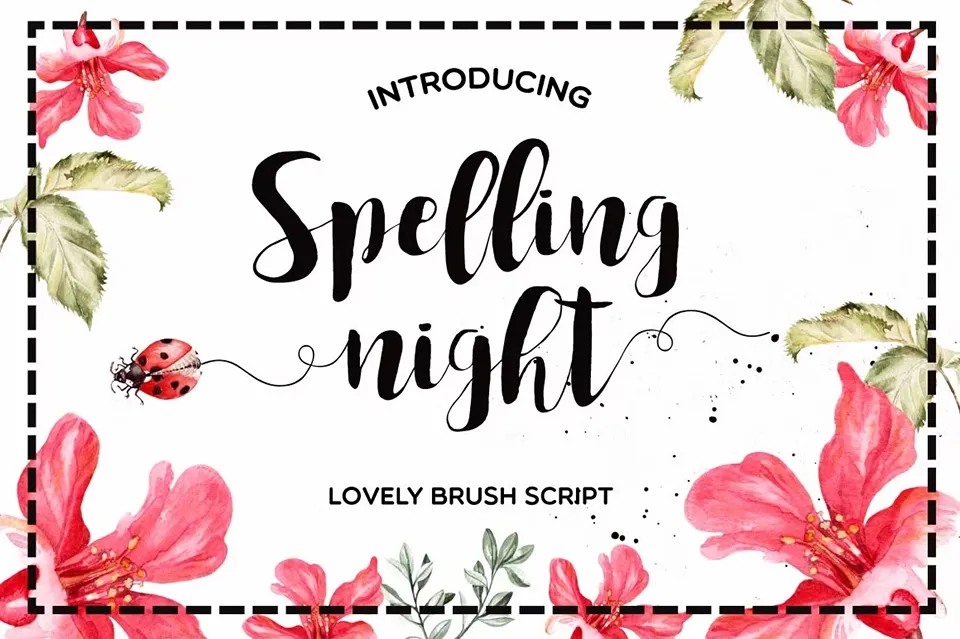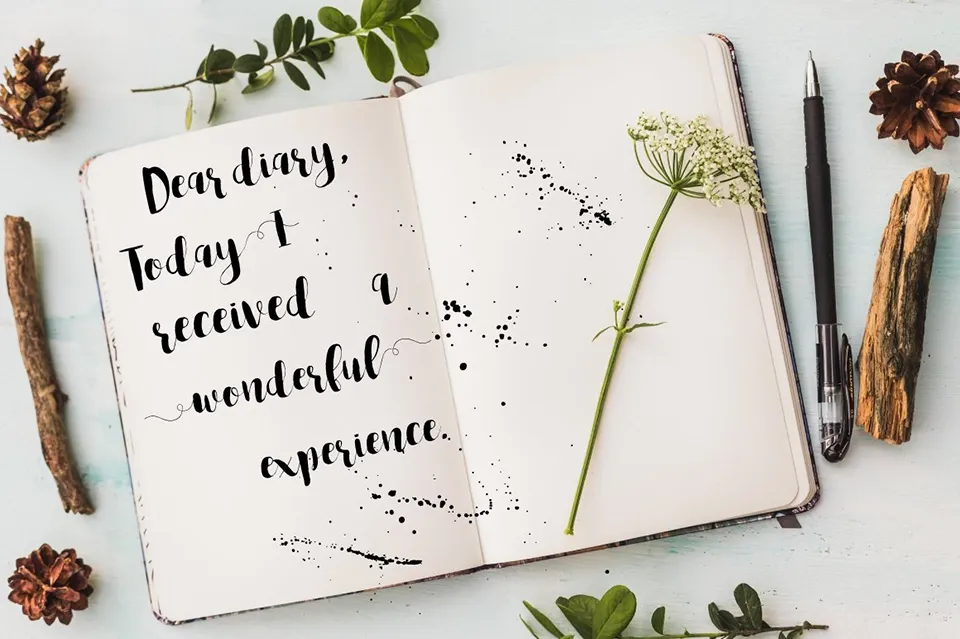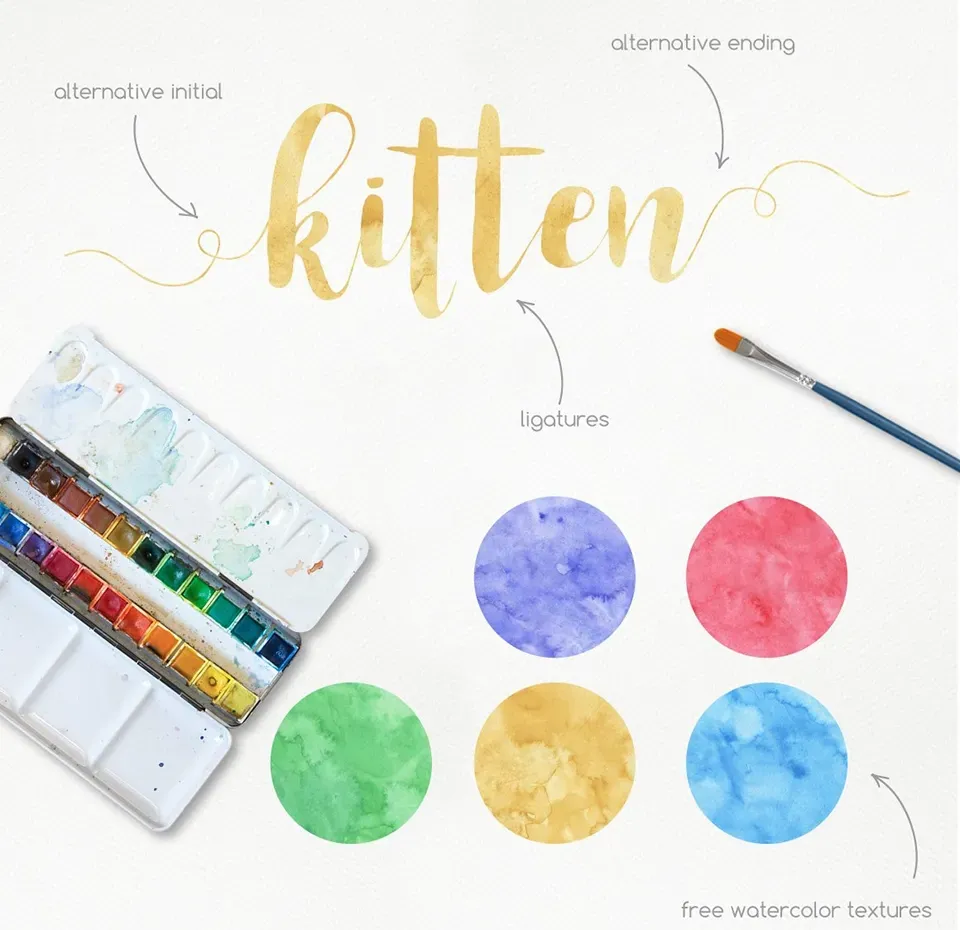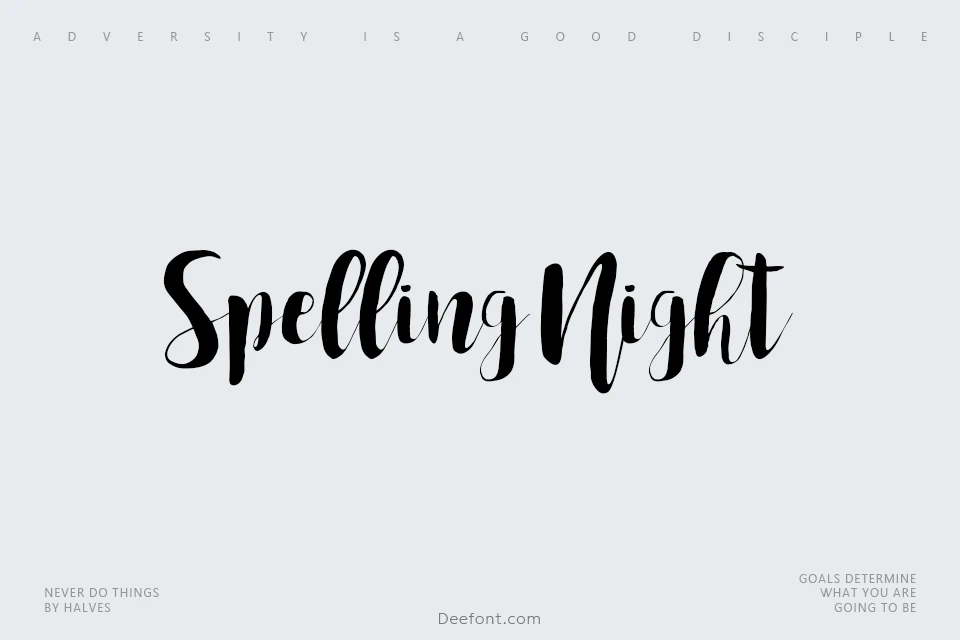
Spelling Night Font
Spelling Night Font is a modern and romantic brush script featuring ligatures, alternate endings, and alternative initials. This font is ideal for wedding invitations, postcards, greeting cards, posters, and even logo or small business branding. Its hand-painted style and versatile features make it perfect for creative, elegant, and eye-catching designs.